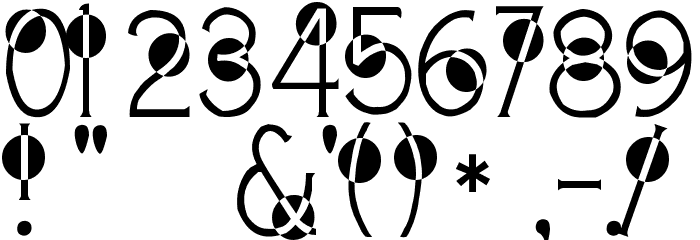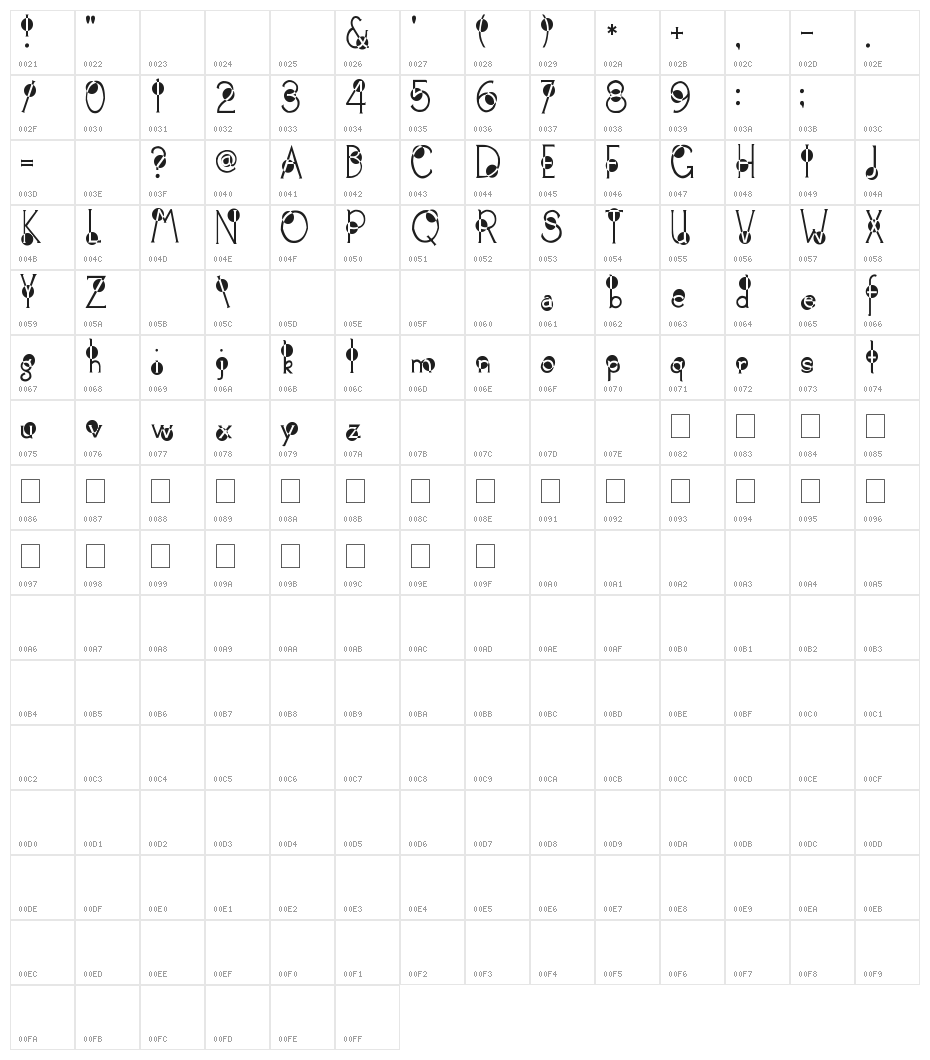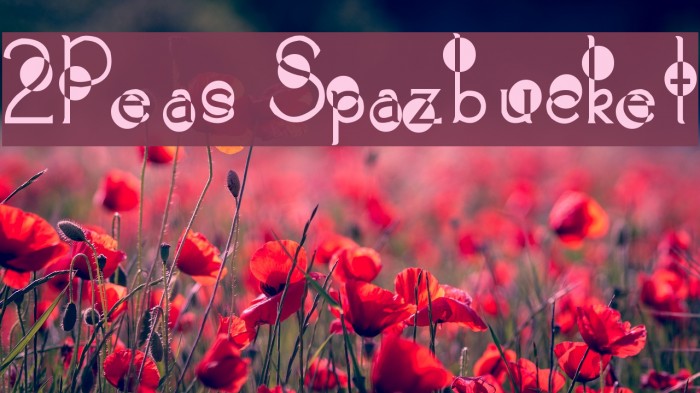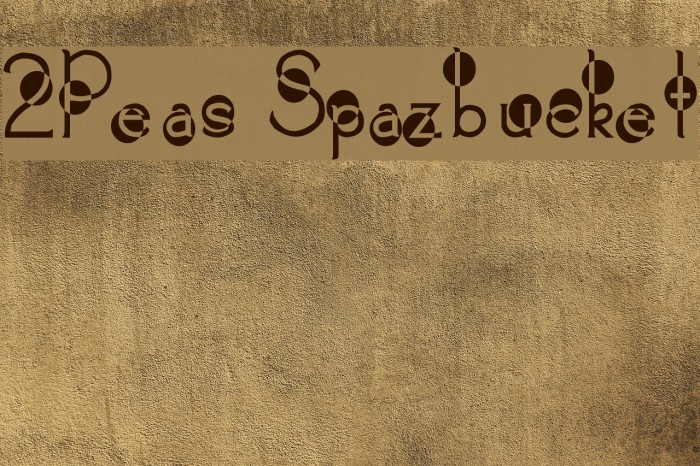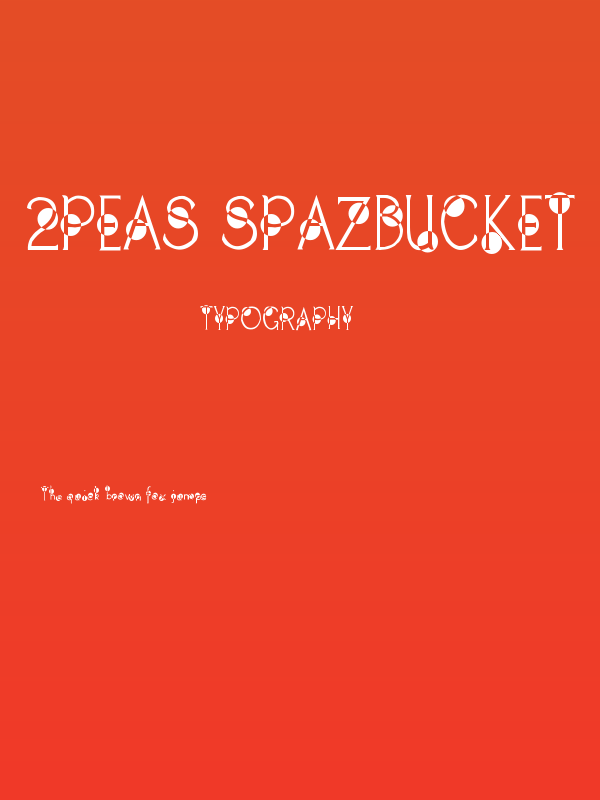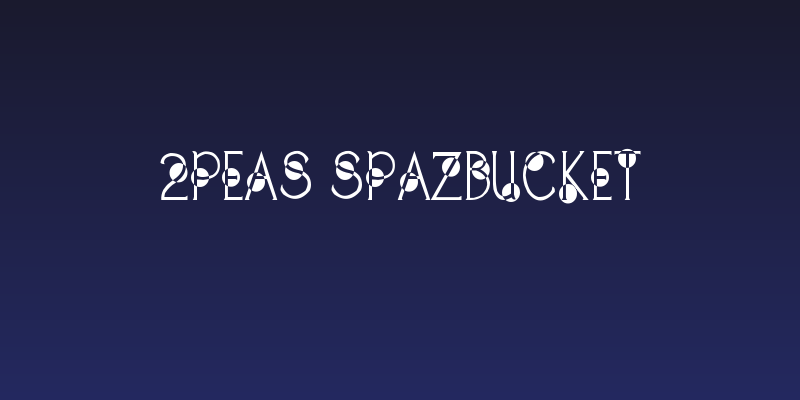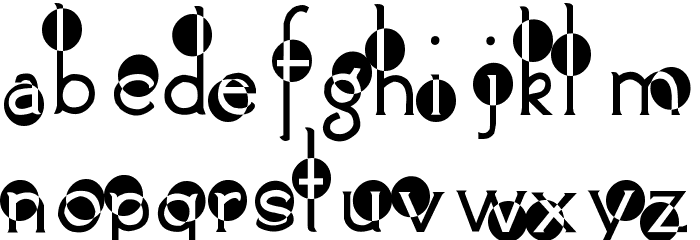
2Peas Spazbucket Font
2Peas Spazbucket Description
This font features a playful and whimsical design, characterized by its unique use of circular cutouts within each character. The letters are primarily uppercase and lowercase alphabets, along with numbers and special characters. The circular elements create a sense of movement and fun, making it stand out as a decorative typeface. The strokes are thin, and the overall appearance is light and airy, adding to its quirky charm. The font's distinct style can add a creative touch to any project, making it ideal for designs that require a sense of humor or a playful tone.
| Overall Style | Playful, Quirky |